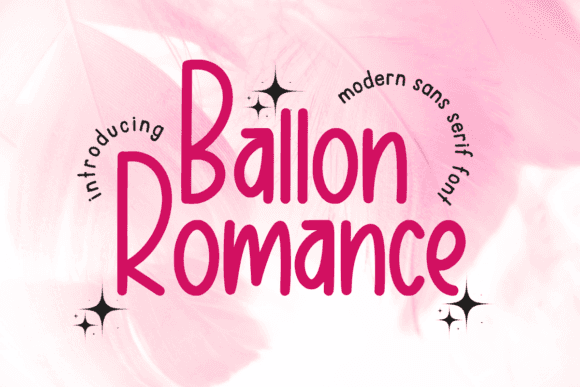
Ballon Romance Font for Cricut, Silhouette and Printable Designs
Ballon Romance Font is a digital typeface tailored for cutting machine compatibility and printable artwork. Its casual style, rounded edges, and soft flow make it ideal for heartfelt crafts, playful designs, and home-based production workflows using Cricut or Silhouette. Whether you're creating personalized gifts or exploring new crafting projects, Ballon Romance Font enhances your artistic expression. It's particularly well-suited for creating barbie font designs for cricut, allowing crafters to produce whimsical and engaging pieces. With its versatility, this font can elevate any home decor or DIY project, making it a favorite among creative enthusiasts.
As a font entity, Ballon Romance supports a range of creative uses—from HTV shirts to printable quotes—while maintaining full functionality in beginner and professional design platforms alike.
- Cut-friendly curves with smooth pathing
- Great for both printing and cutting crafts
- Fun, romantic, and easy-to-read style
Q: What kind of font is Ballon Romance?
A: It’s a rounded, script-inspired font built for cutting and printable craft use. Ideal for Cricut, Silhouette, and design software.